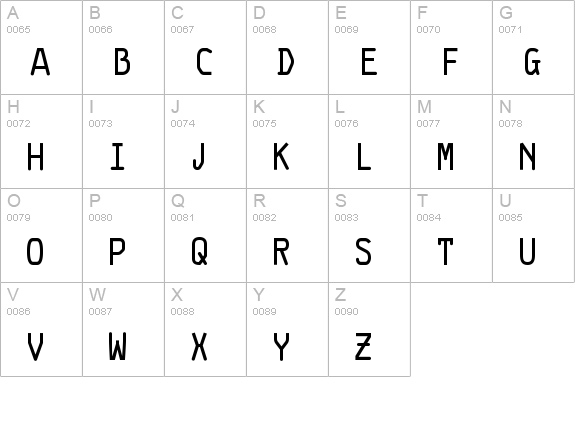
HardCase-LightCondensed Font Details
HardCase-LightCondensed is a modern and sleek typeface that exudes a sense of confidence and sophistication. Its condensed letterforms are meticulously crafted to create a clean and minimalist aesthetic, making it the perfect choice for projects that require a contemporary and professional look. The font's sharp edges and precise geometry give it a strong and bold presence, while its light weight adds a touch of elegance and refinement. Whether used for headlines, subheadings, or body text, HardCase-LightCondensed commands attention and ensures readability in any context. What makes this font even more appealing is that it is freely available to download at FontsMarket.com. This means that designers and creatives can easily access and utilize this versatile typeface without any restrictions. Its availability as a free resource allows for seamless integration into various design projects, from branding and packaging to web design and print materials. HardCase-LightCondensed is a true gem for those seeking a high-quality font that combines modernity with an air of sophistication. Its clean lines, condensed proportions, and lightweight make it a versatile and timeless choice for any design endeavor. Download it today at FontsMarket.com and elevate your designs with this exceptional typeface.